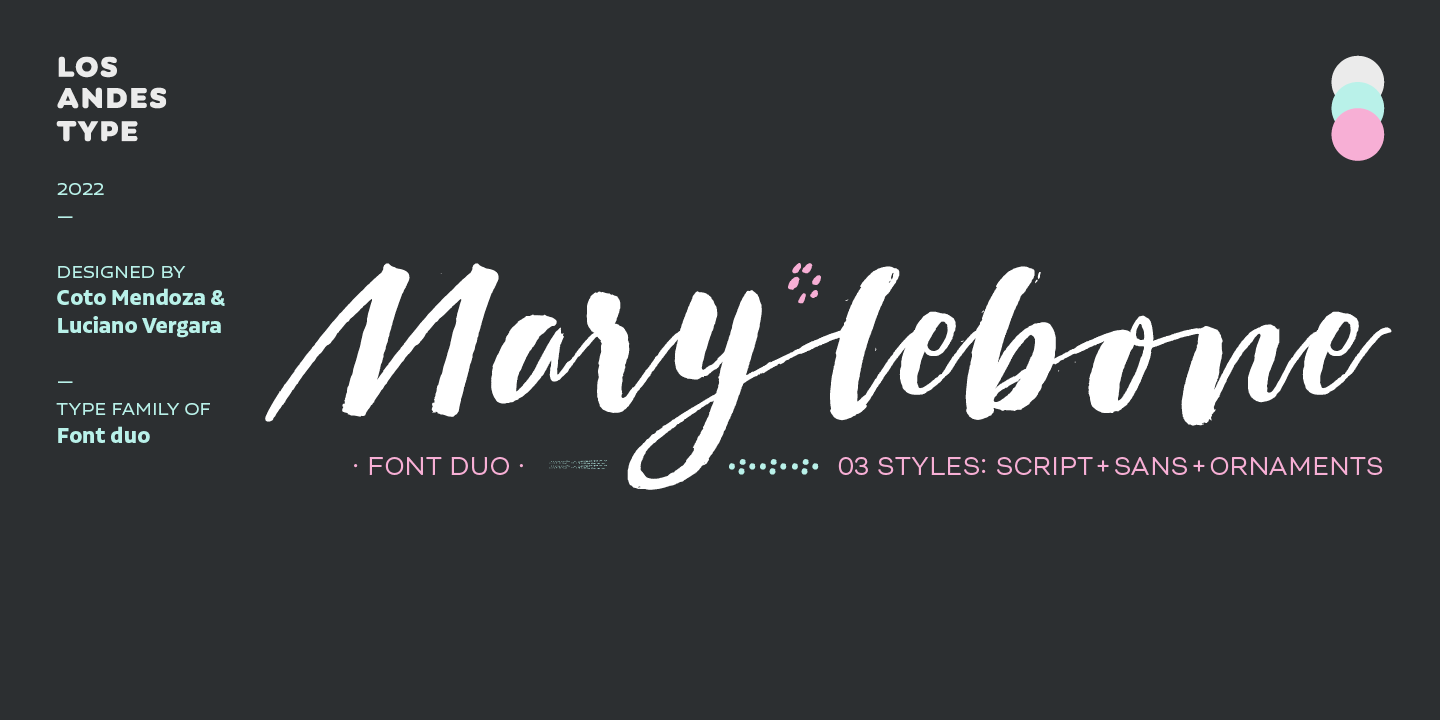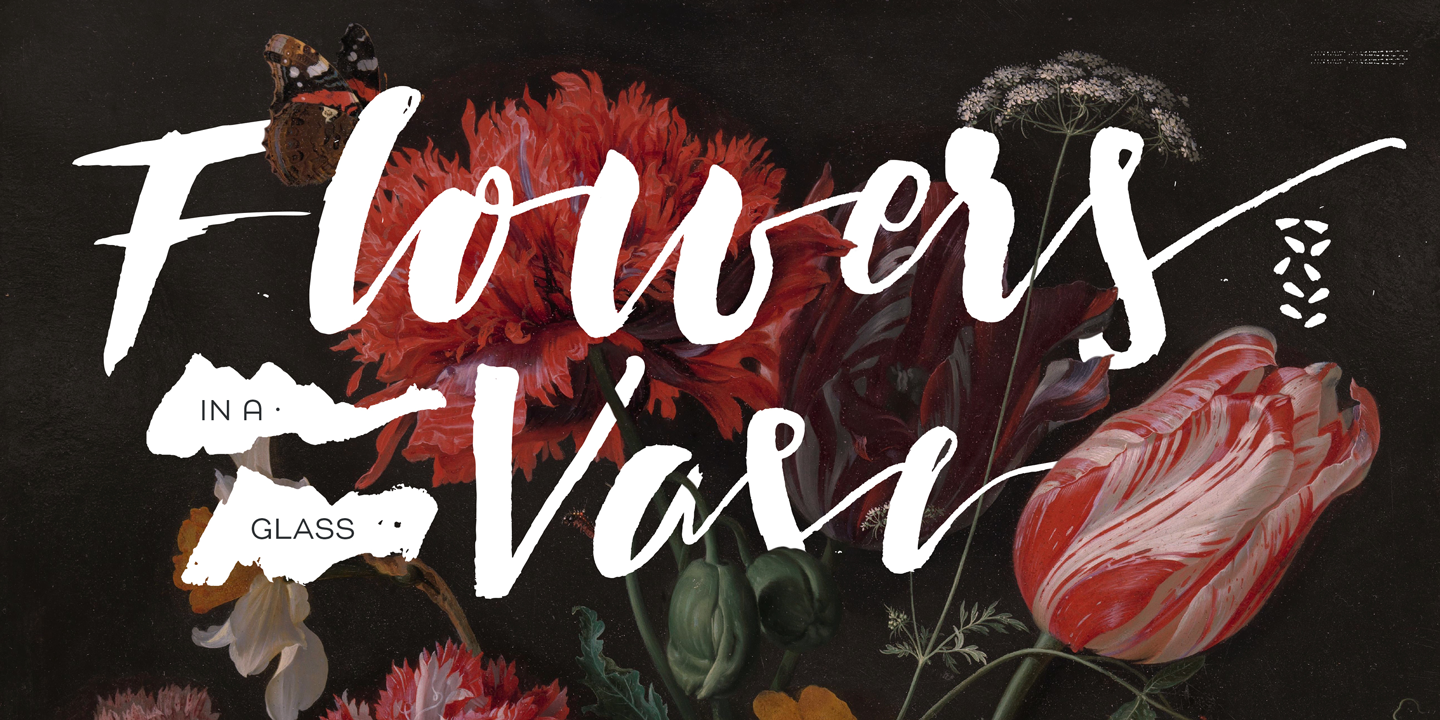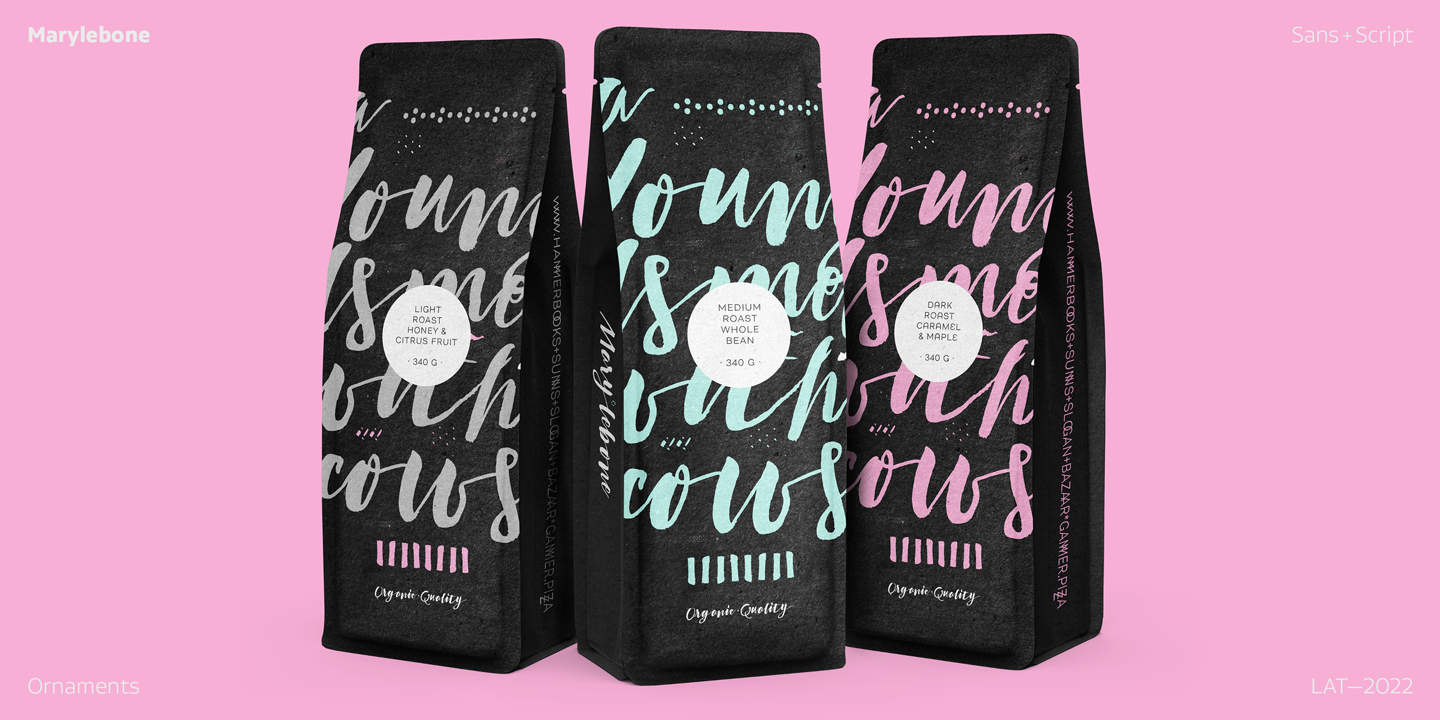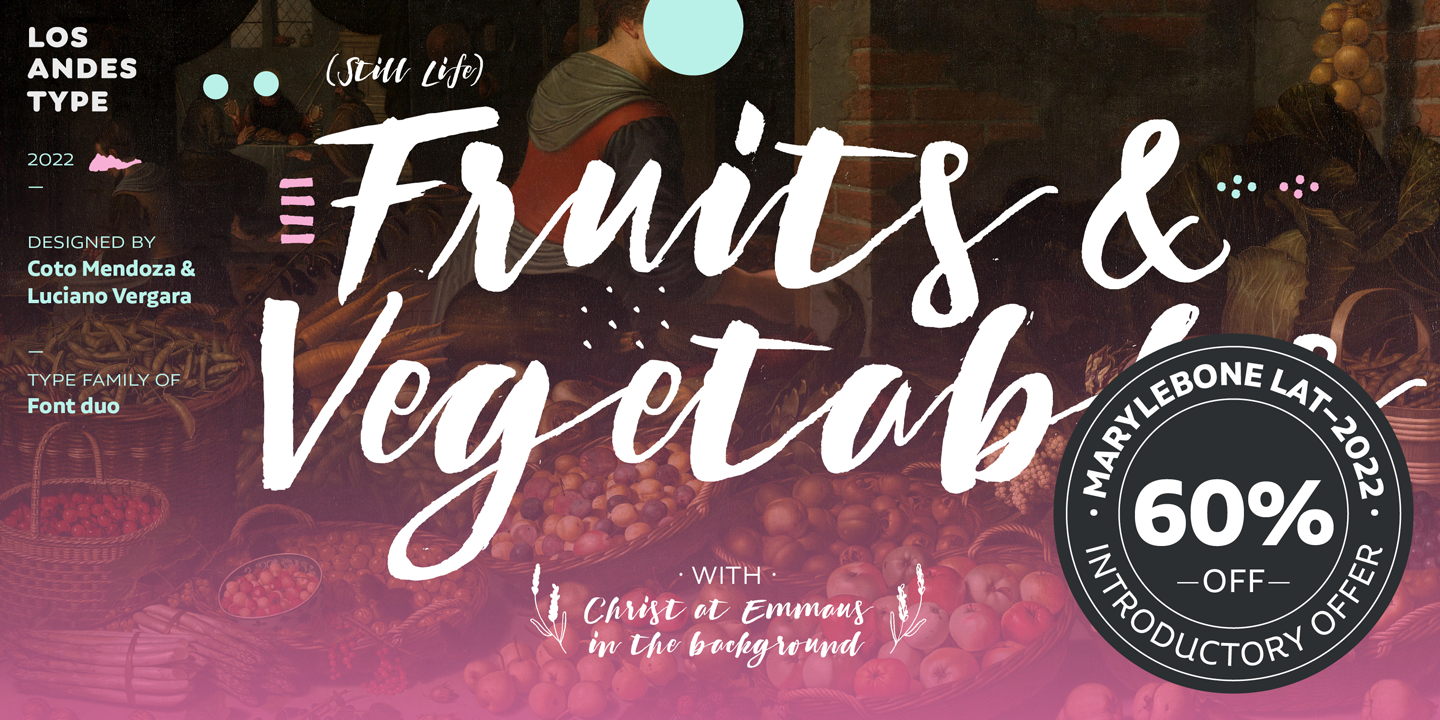
Marylebone (3 fonts)
From Los Andes Type
Marylebone allows you to design beautiful compositions for packaging, advertising, quotes, wall art, branding, photography overlays, magazines, motion graphics, scrapbooking, planners, window art, tags, tote bags and much more, thanks to its irregular appearance that gives a unique personality to your design projects.